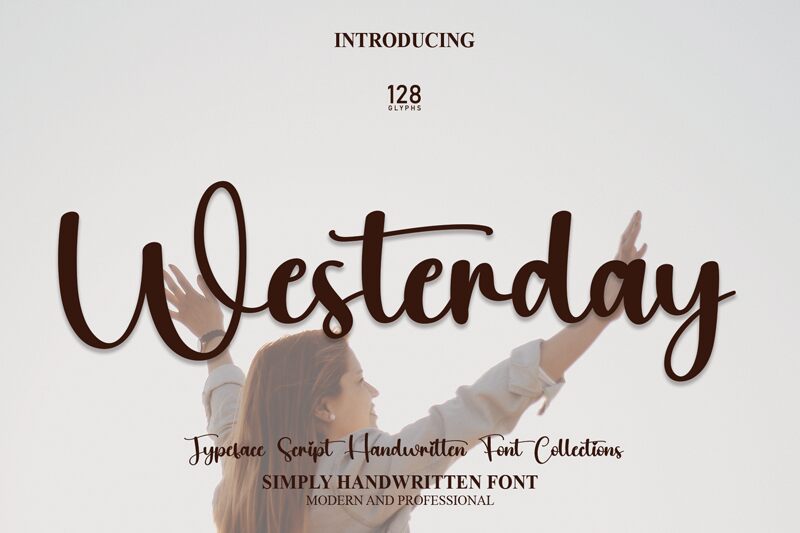
Westerday
Westerday, an exquisite calligraphy font designed by Scratchones, effortlessly captures the essence of elegance and sophistication.
With its semi-light weight, this font gracefully dances across the page, making it ideal for wedding invitations and romantic love letters. Its delicate strokes and flowing curves lend themselves beautifully to branding projects seeking a touch of refinement. Whether used for fashion magazines or high-end beauty products, Westerday's timeless charm will captivate any audience.
Embrace the allure of calligraphy with Westerday and elevate your projects to new heights of grace and allure.
With its semi-light weight, this font gracefully dances across the page, making it ideal for wedding invitations and romantic love letters. Its delicate strokes and flowing curves lend themselves beautifully to branding projects seeking a touch of refinement. Whether used for fashion magazines or high-end beauty products, Westerday's timeless charm will captivate any audience.
Embrace the allure of calligraphy with Westerday and elevate your projects to new heights of grace and allure.